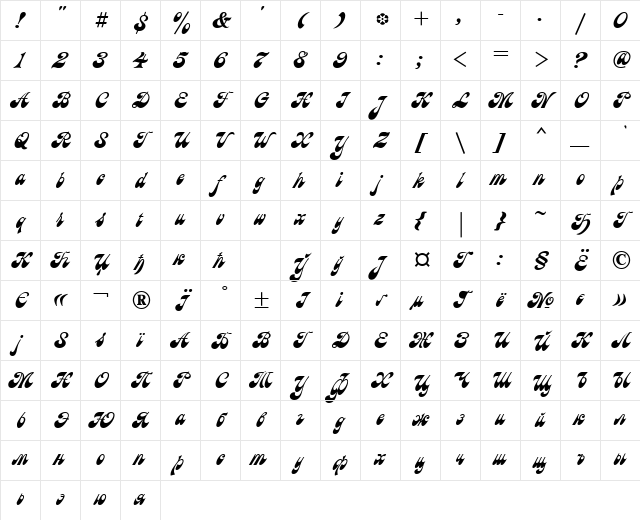
Complete Astron Cyrillic glyph index. Displaying only characters natively supported by Astron Cyrillic font.
Astron is a composed and adaptable typeface that performs quietly and consistently across a wide range of design contexts.